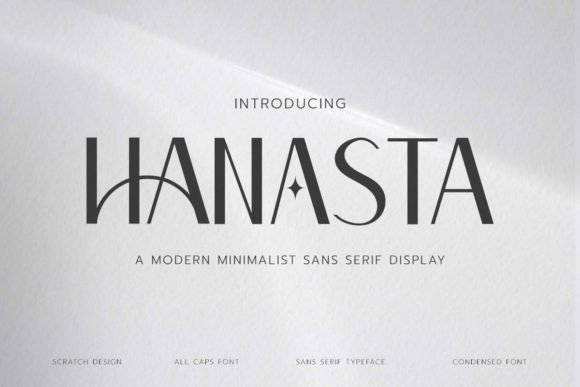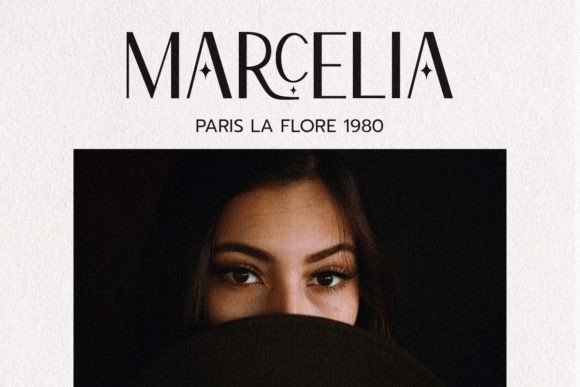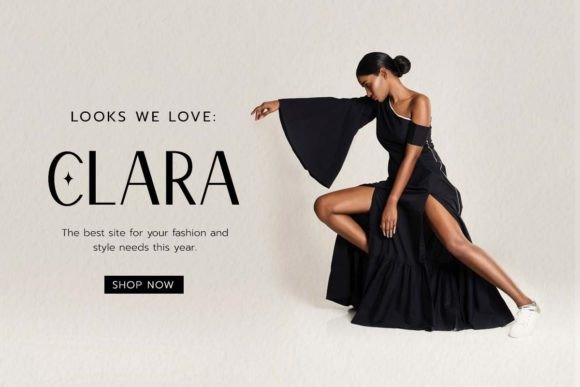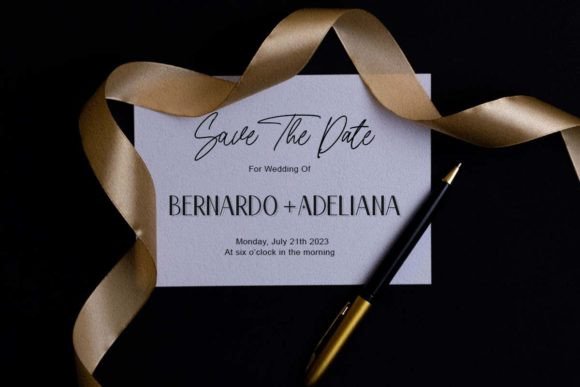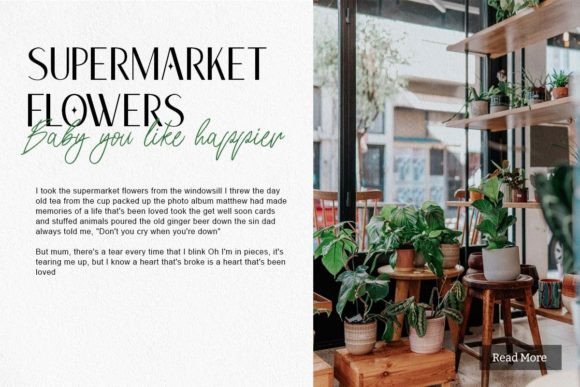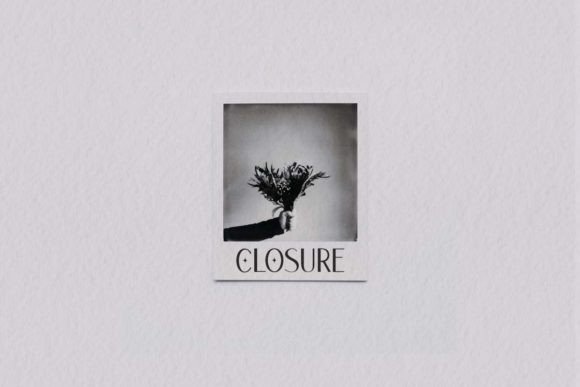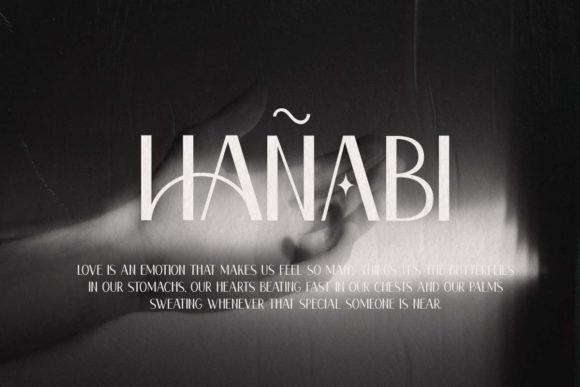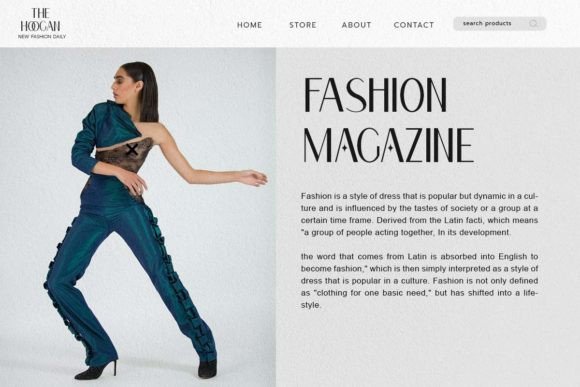
Hanasta Font
Please welcome Hanasta, our modern minimalist sans-serif display font. A stunning typeface that combines the sleek, simple but exotic characteristics of a sans-serif font with beautiful ligatures, making it an ideal choice for creating elegant and sophisticated designs.
This font is perfect for your design needs such as fashion websites, logo design, branding, social media design, book, magazine, wedding invitations, etc.